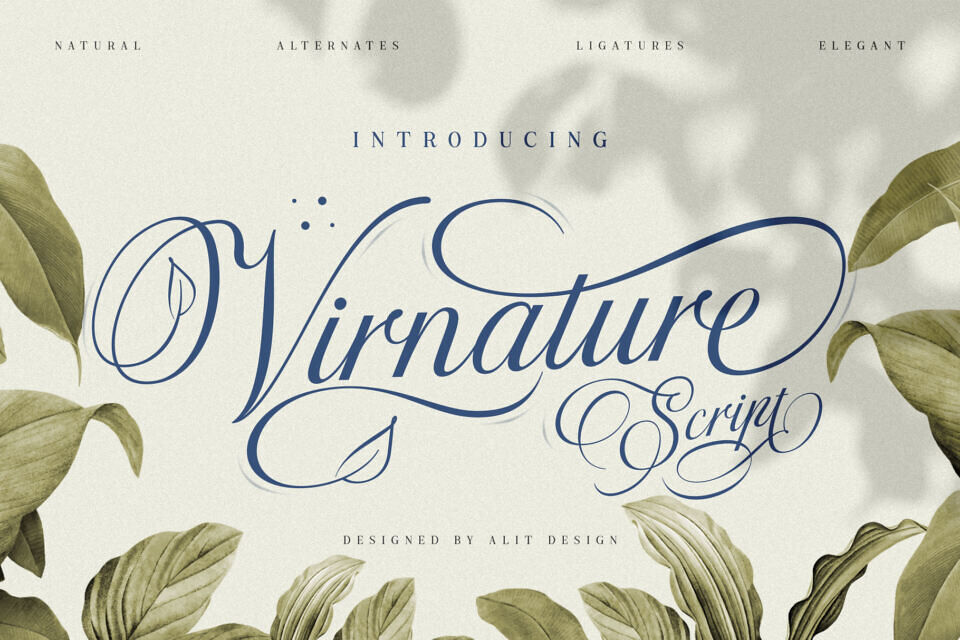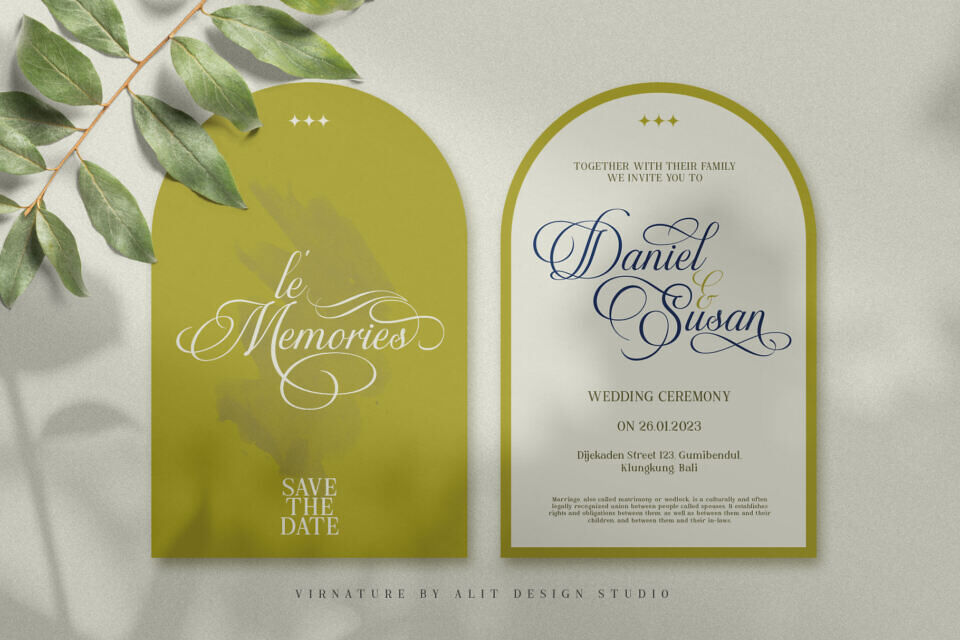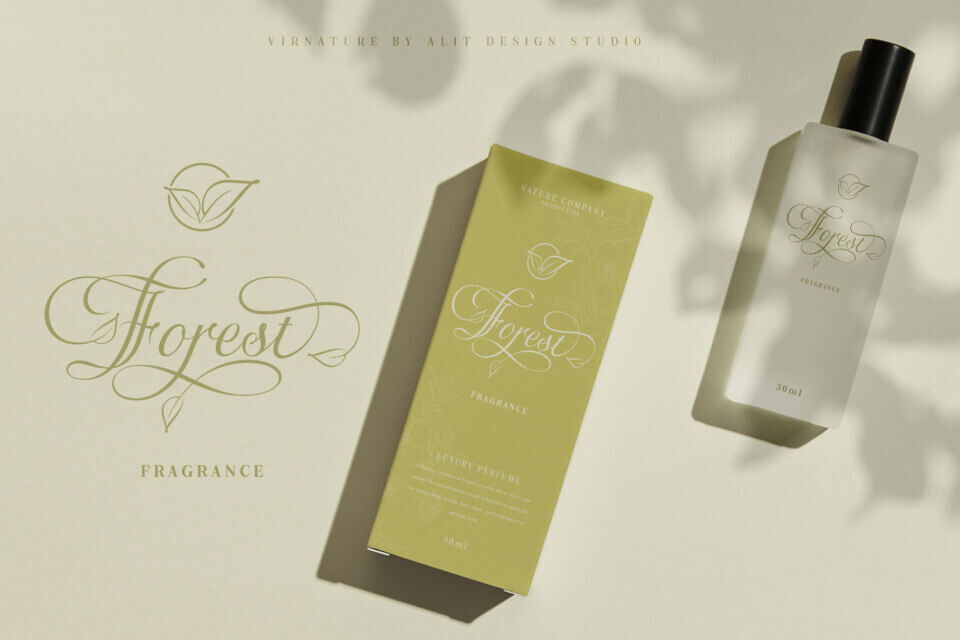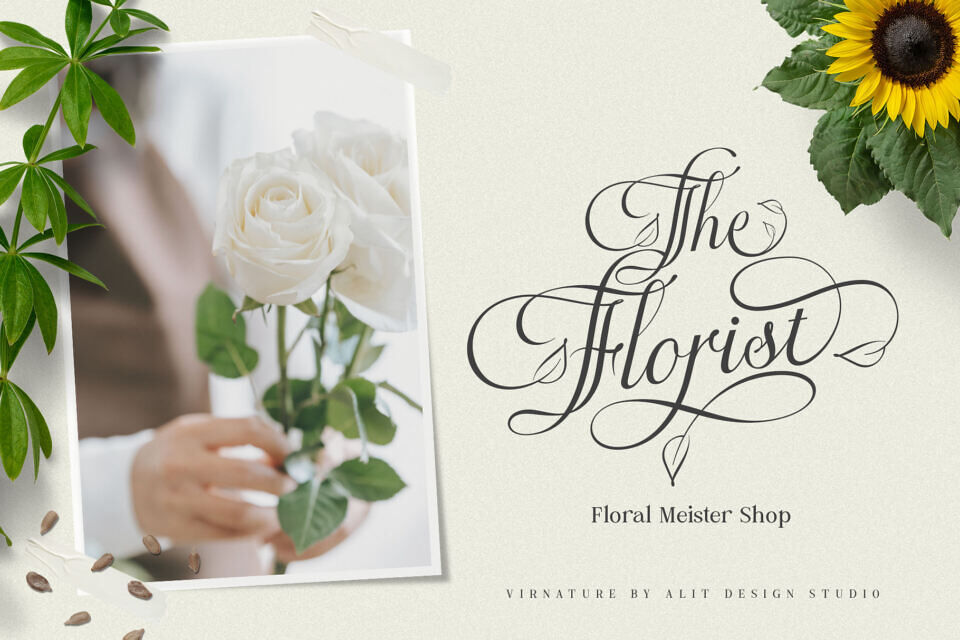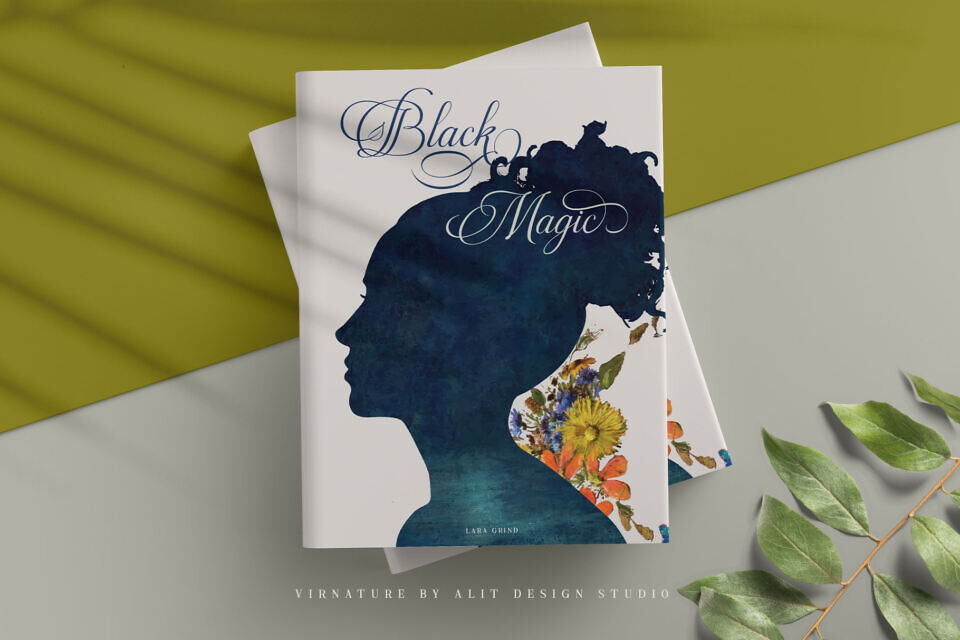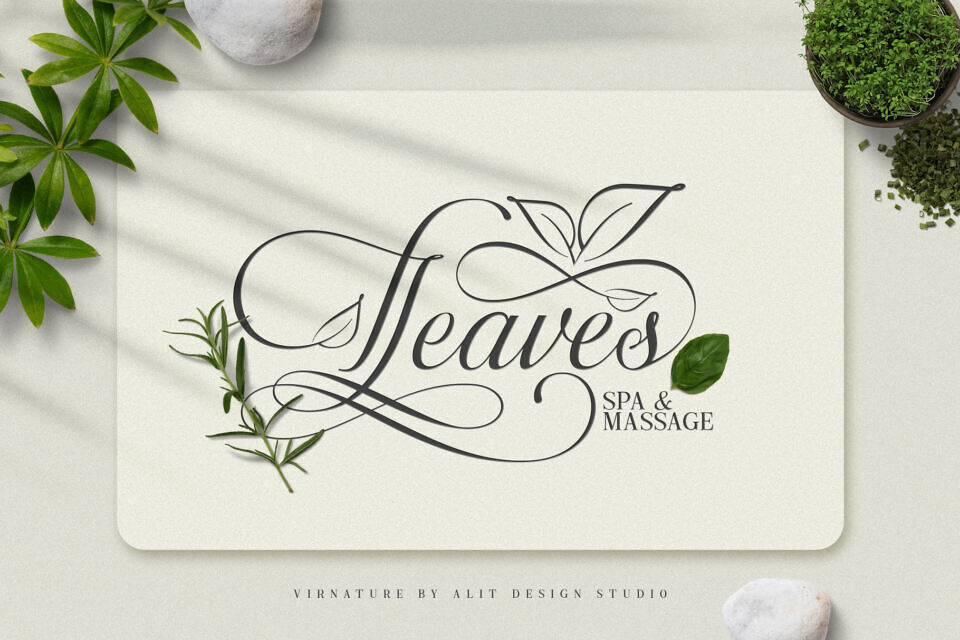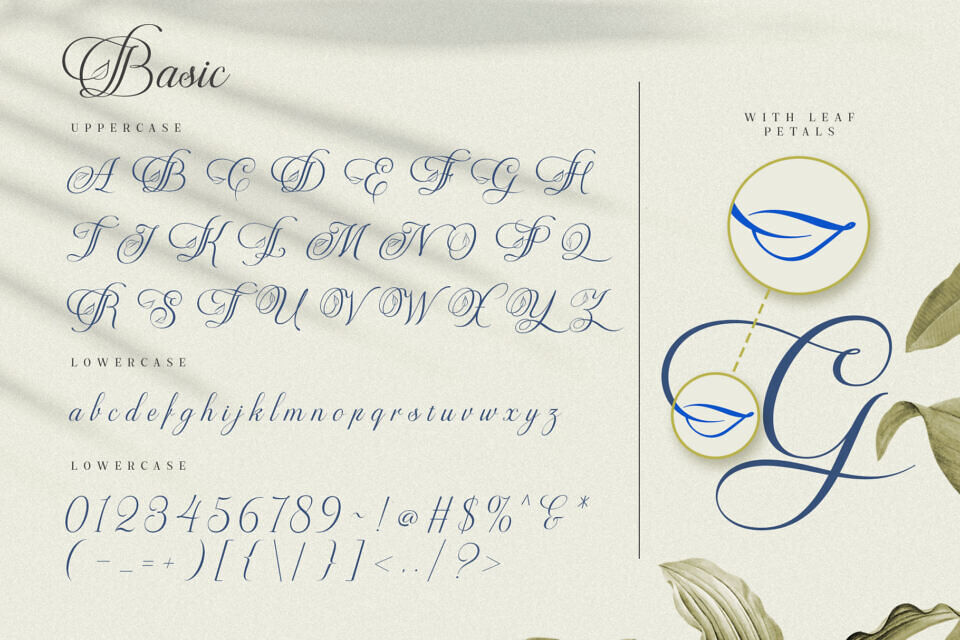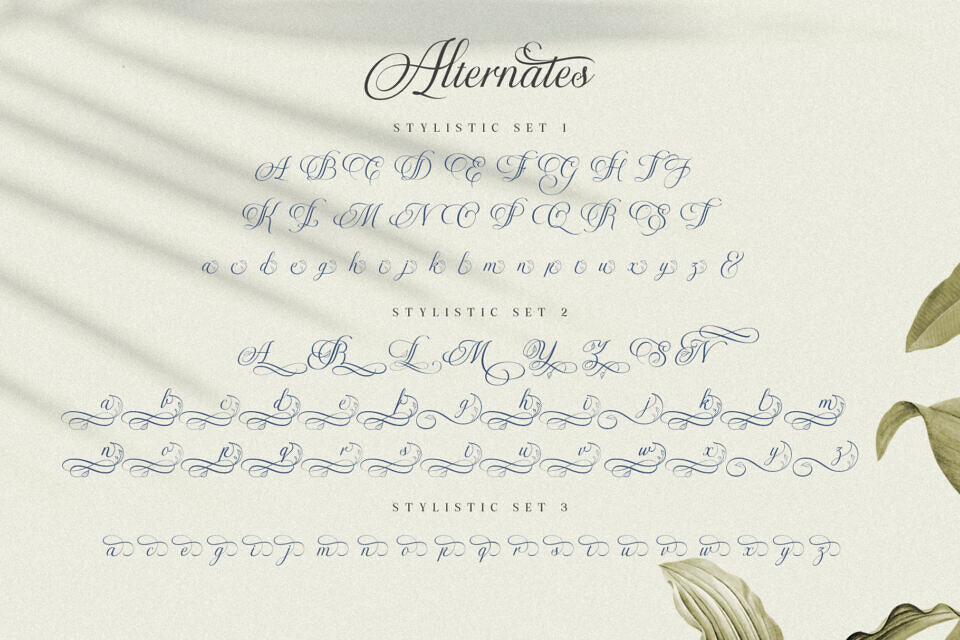
Virnature Font
The Virnature font is inspired by elegant script fonts combined with the concept of nature. It can be seen by the beautiful and fitting leaf ornaments that make the Virnature font besides elegance also unique with the concept of nature.
The Virnature font includes full set of Uppercase and Lowercase Basic Characters, Numerals, Punctuation and Multi lingual support. Also it contains ligatures and a lot of stylistic alternatives to perfectly re-create natural calligraphy and nature concept designs (check the previews in order to see them all).
The Virnature font has alternatives that you can combine between swashes and symbols that have the theme of elegant nature. Besides that this font is very easy to use both in design and non-design programs because everything changes and glyphs are supported by Unicode (PUA).